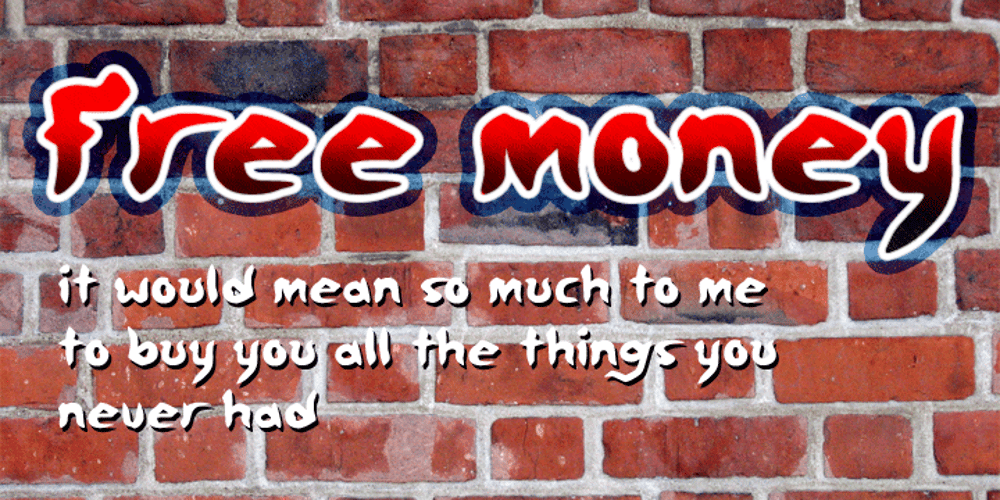
Free Money Font Family was designed by Jeremy Tenison-Woods and published by Jeremy Woods. Free Money contains 1 styles and family package options. Free money is an organic-looking display font. It was inspired by gig poster art, alternative comics and b-grade movies.